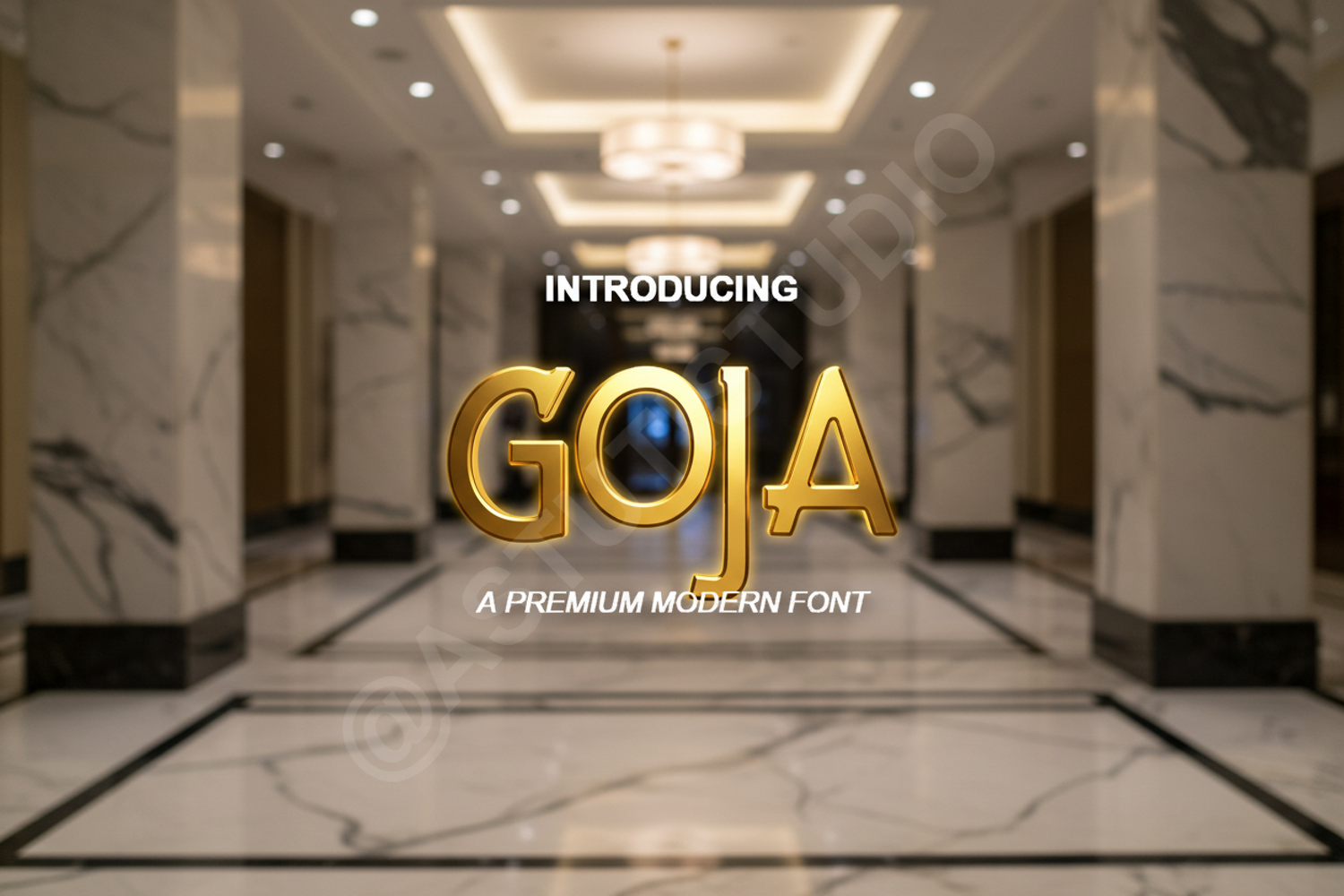
Goja - Elegant Modern Sans Serif Typeface
Goja
Goja is a premium sans serif font that embodies modern minimalism and professional elegance. Carefully crafted with balanced proportions and clean lines, Goja offers a sophisticated aesthetic that enhances any creative project. Whether you are building a high-end brand identity or designing a sleek editorial layout, this font provides the versatility and clarity needed to make a lasting impression.
- Branding and Visual Identity: Perfect for logos, business cards, and corporate stationery.
- Editorial Design: Ideal for magazine headers, book covers, and clean body text.
- Digital Presence: Optimized for high-readability on websites and mobile applications.
- Marketing Materials: Enhance social media graphics, posters, and professional presentations.